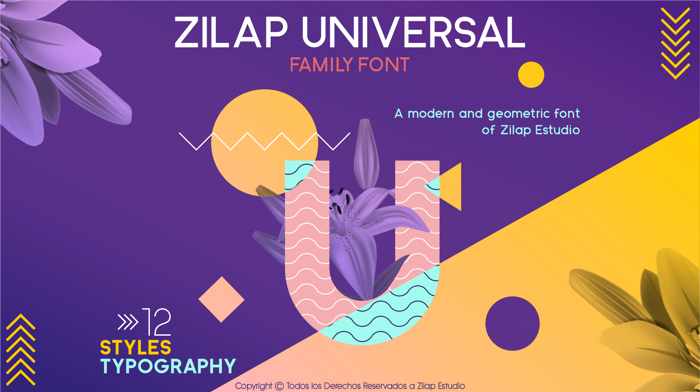
Zilap Universal Font
ZILAP UNIVERSAL FAMILY FONT: Is a simple and modern font, designed with great readability to be used in different graphic settings, it has 12 very well defined versions, its geometric concept makes it an elite font, which will fit perfectly in all types of national or global project.